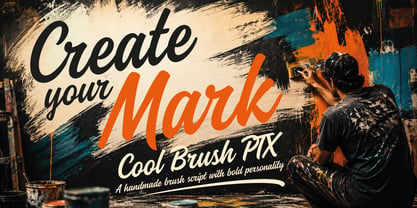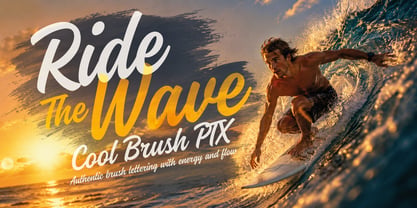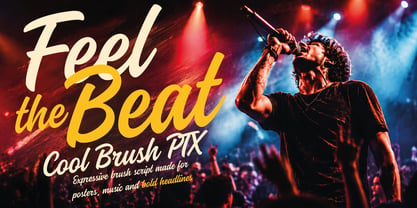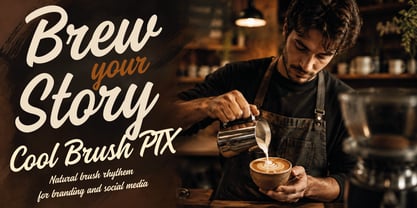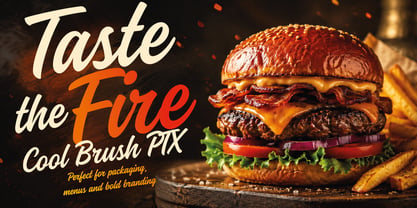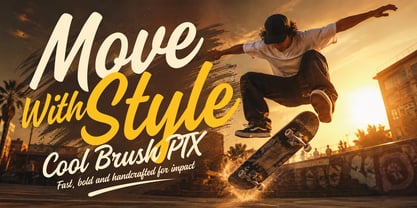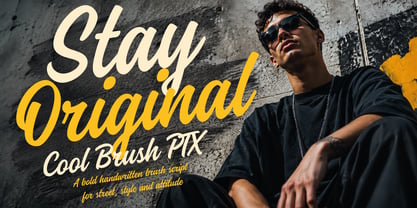
Cool Brush PTX
by Pedro Teixeira
Cool Brush PTX is an energetic handwritten brush script designed to bring movement, confidence and personality to every word. Inspired by fast brush lettering and spontaneous hand-painted signs, its fluid strokes, expressive capitals and natural rhythm create an authentic handmade appearance without sacrificing readability.
Casual, bold and full of attitude, Cool Brush PTX is especially effective in large headlines, logos, apparel graphics, packaging, posters, album artwork, sports branding, advertising, social media content and lifestyle campaigns. Its dynamic letterforms work equally well for short statements, motivational quotes, product names and attention-grabbing promotional messages.
Use Cool Brush PTX whenever a design needs to feel personal, creative and immediate. From surf and streetwear identities to food packaging, music graphics, event promotion and contemporary branding, this expressive brush font delivers the energy of genuine hand lettering in an easy-to-use digital typeface.